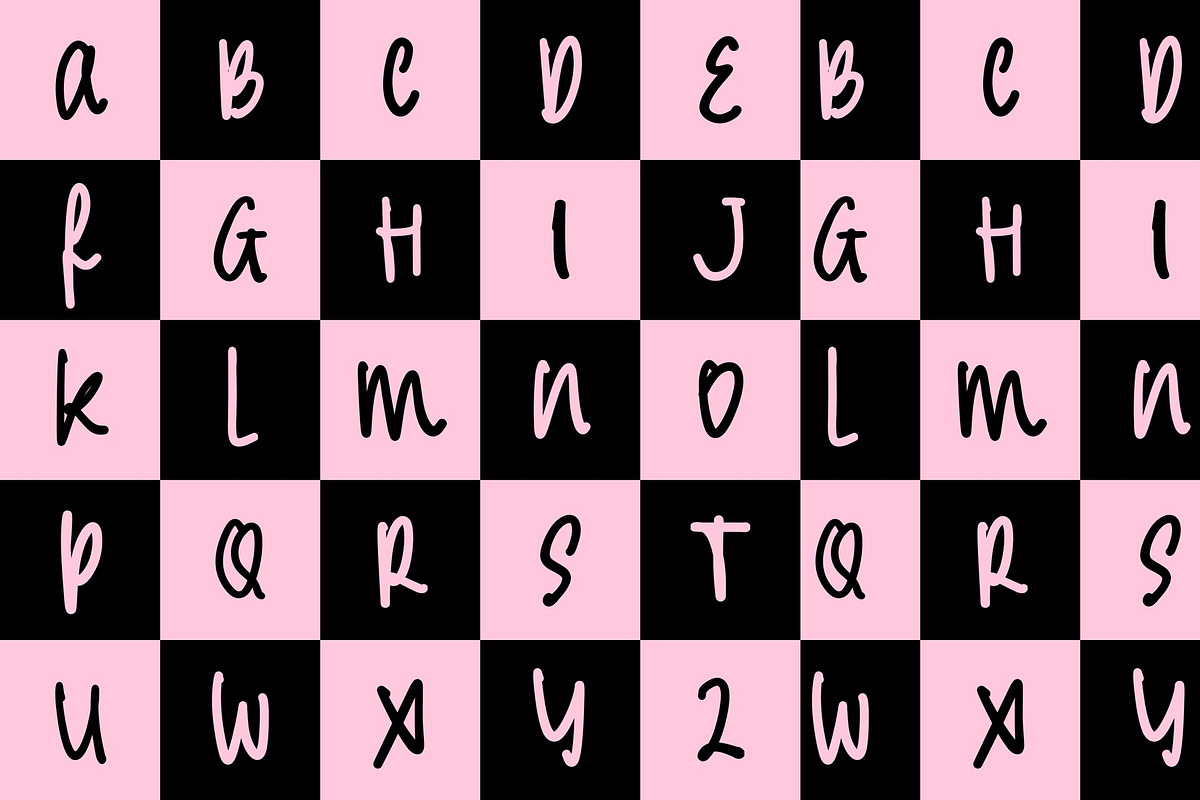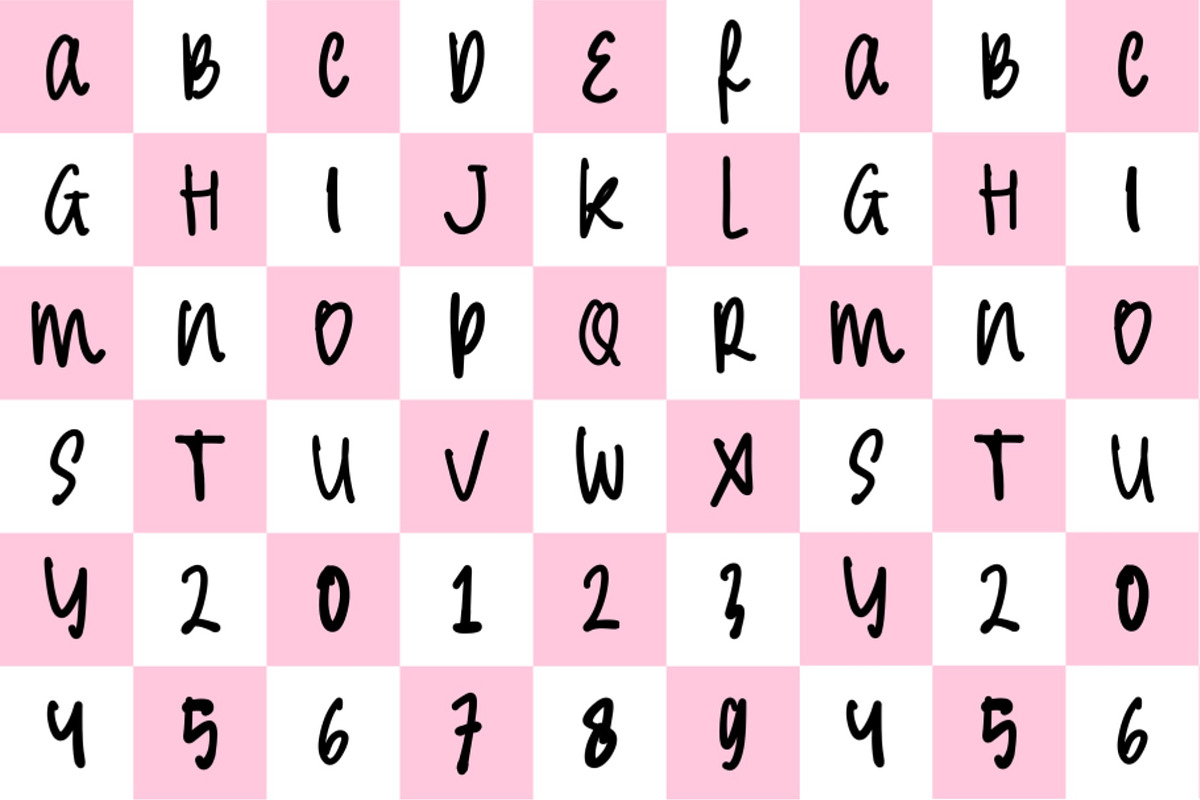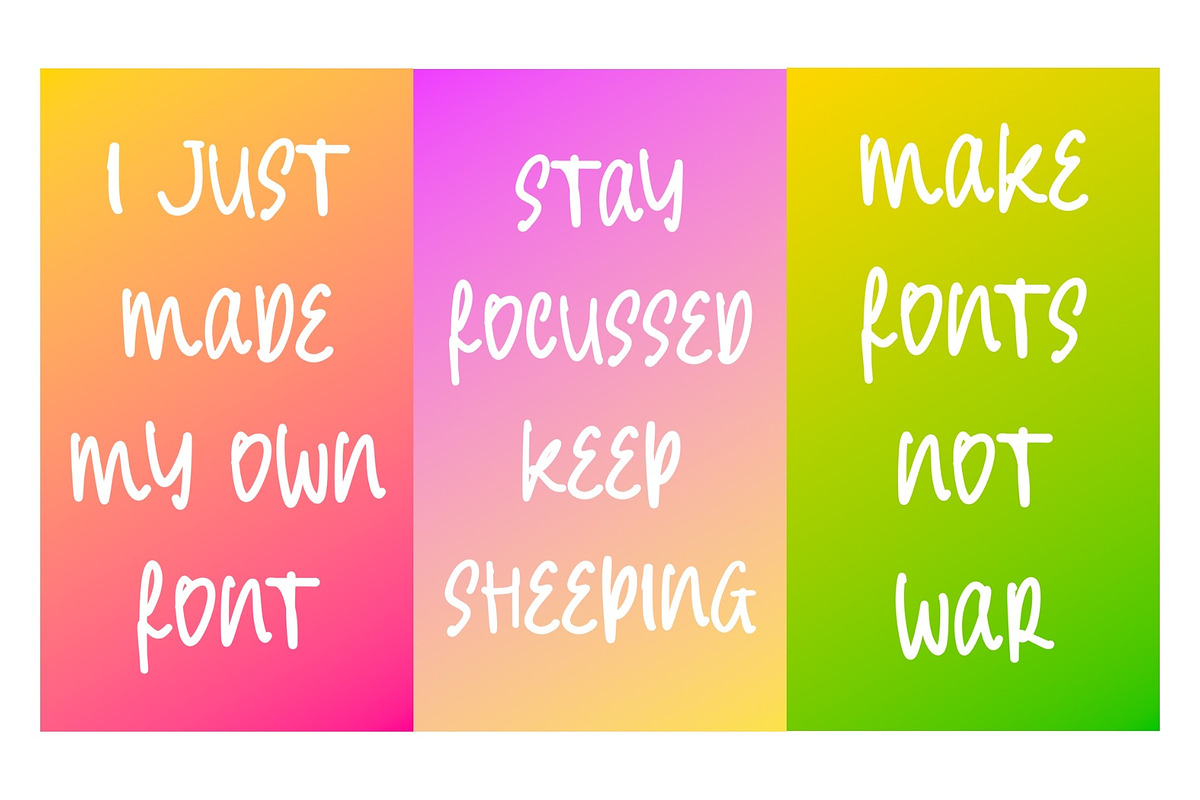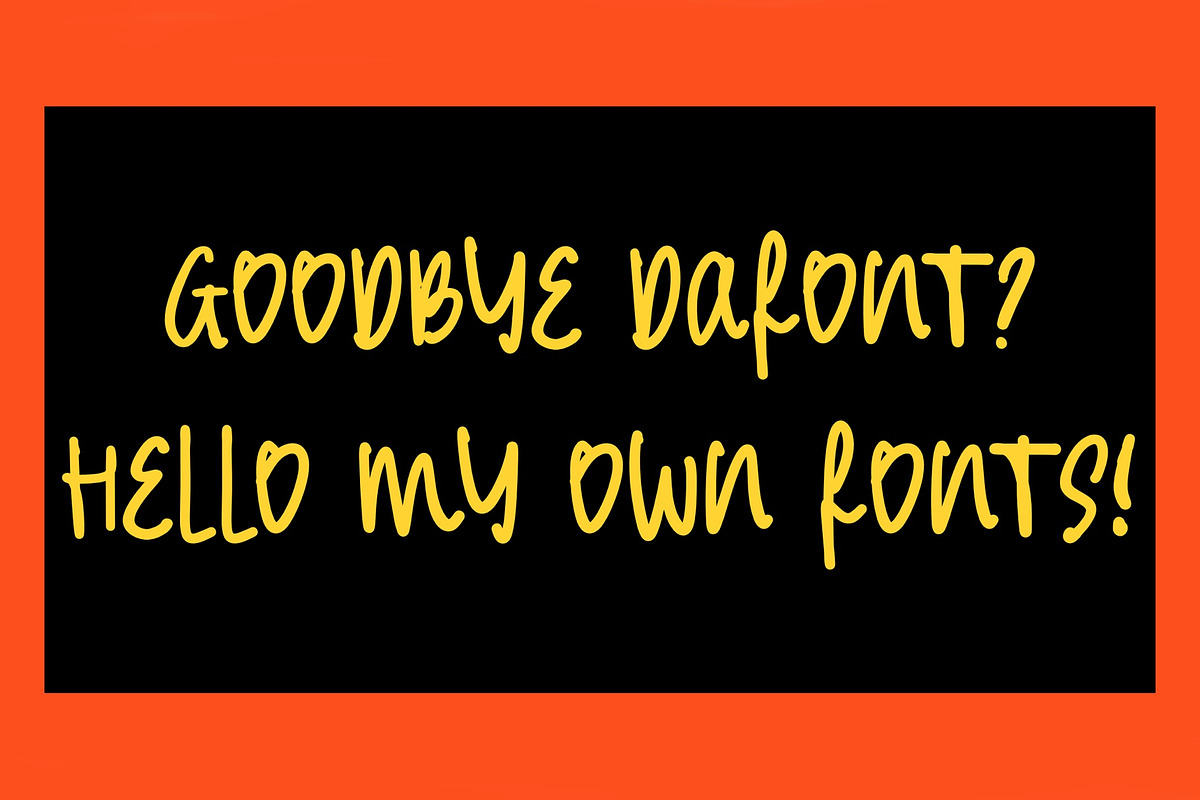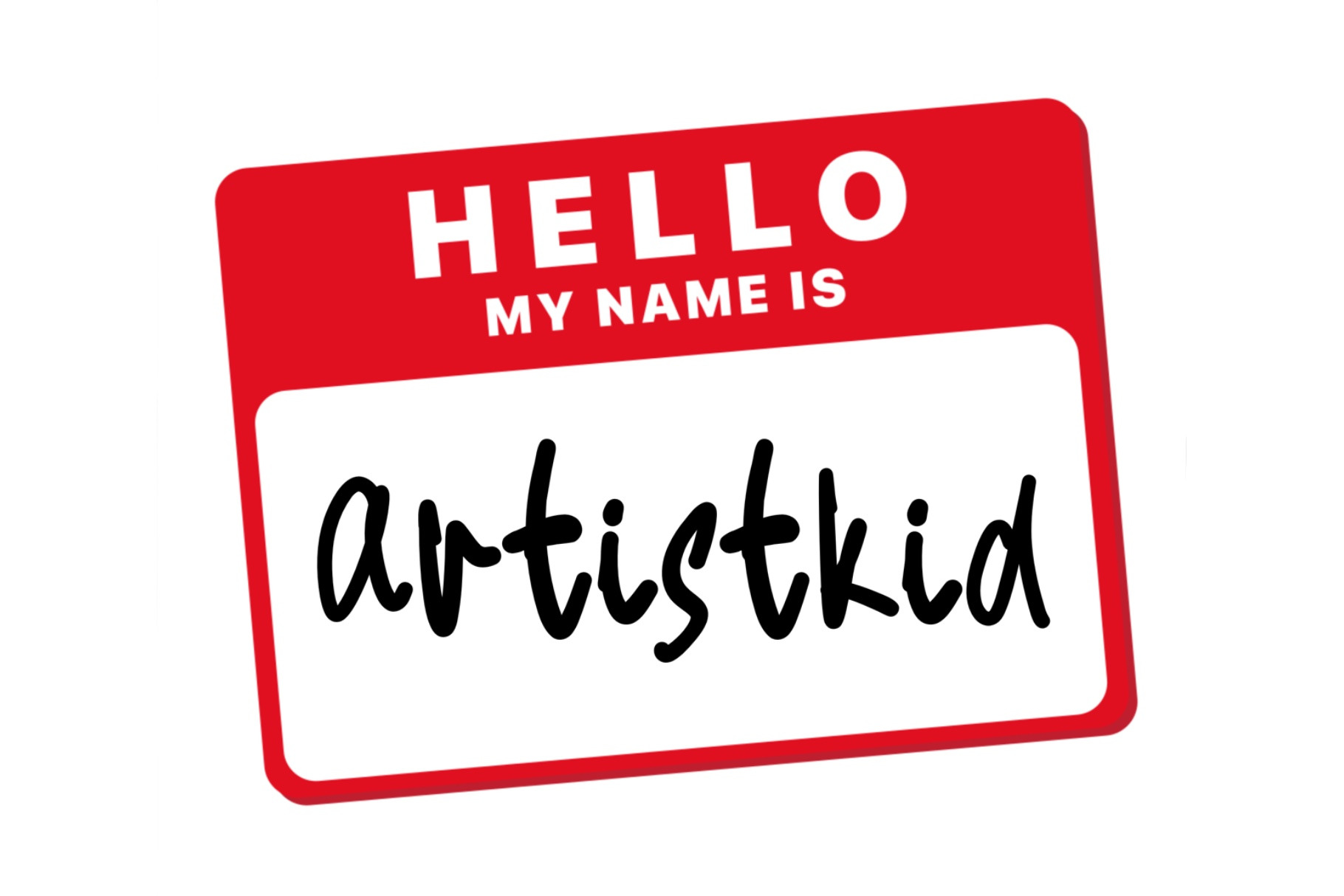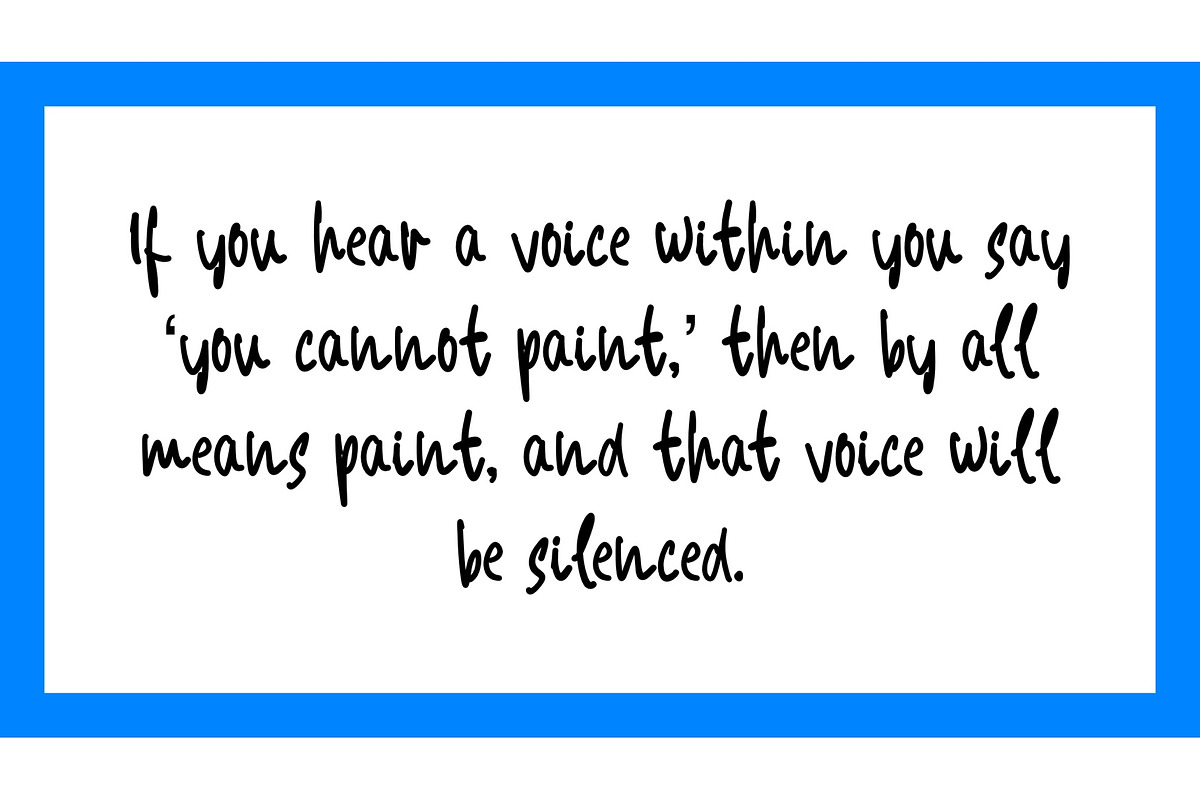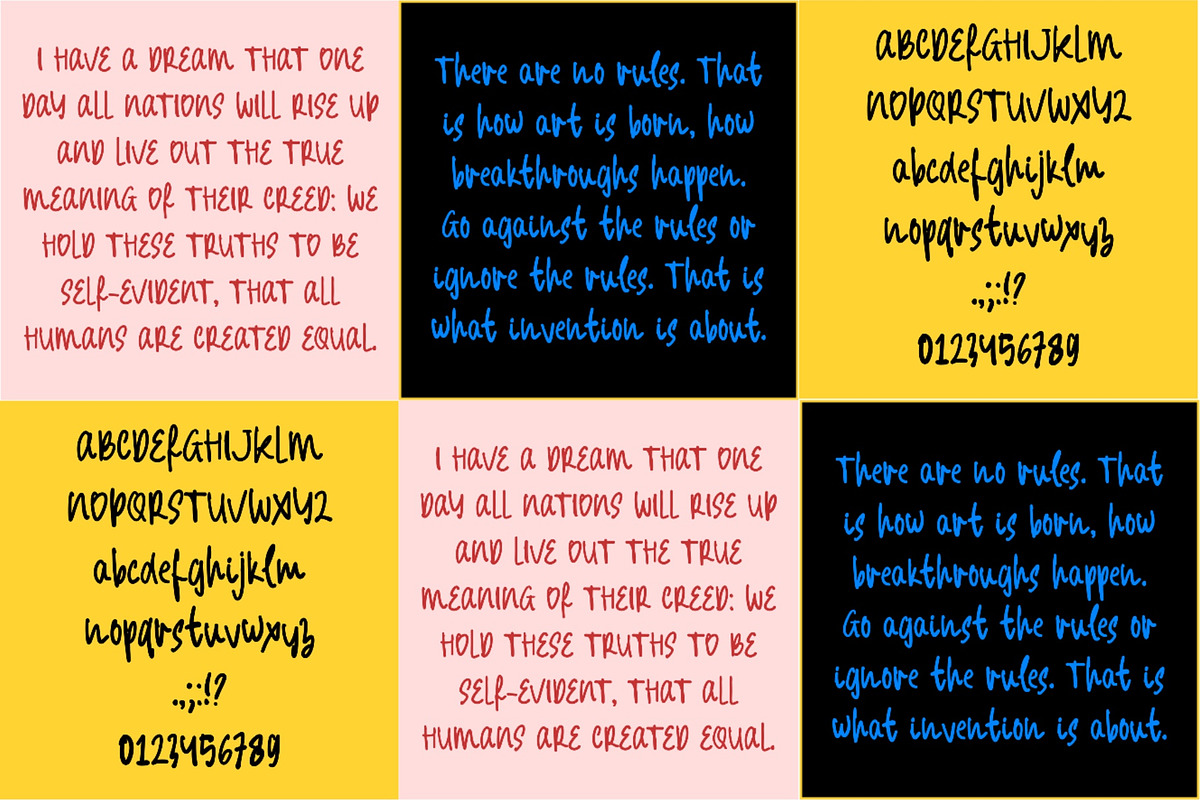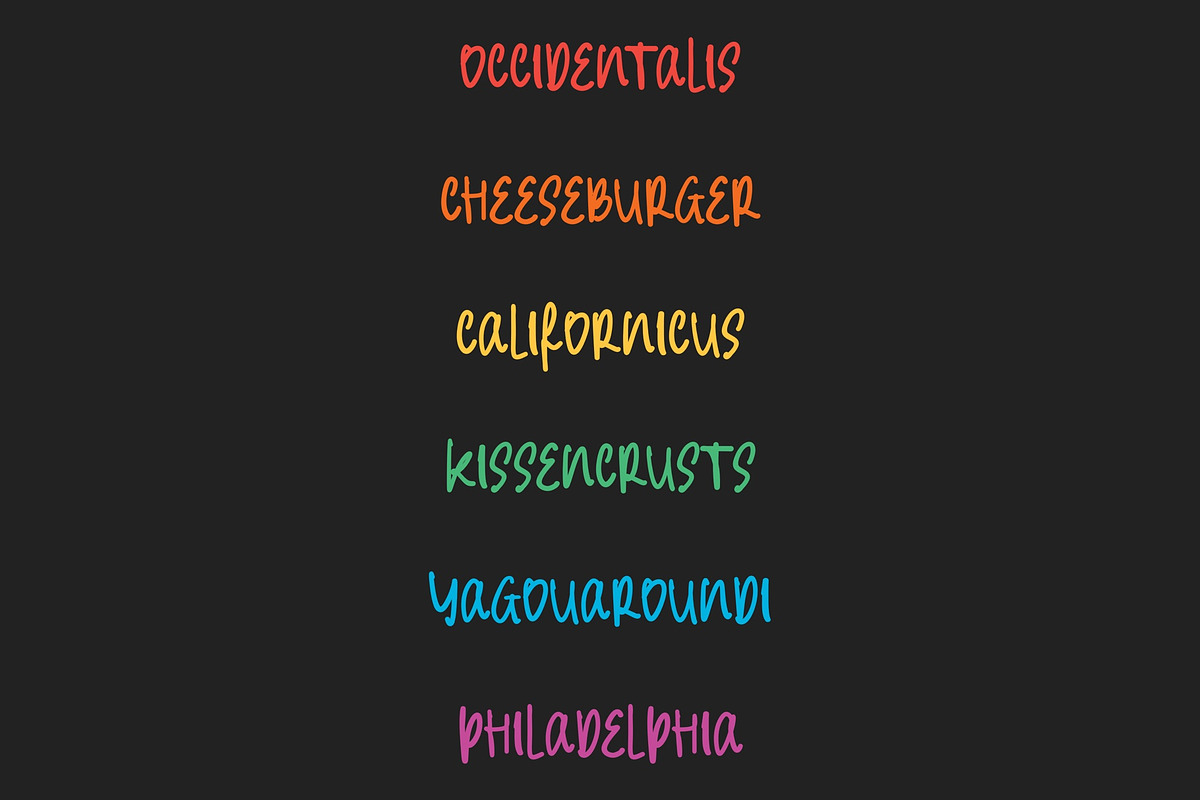
Artiskid Font
Artiskid is a simple, quirky and adaptable handwritten font. Its informal style and casual vibe will make this font a go-to choice for each of the creations that require a relaxed touch. This font is ideal for the design of children's printed products: posters, stickers, wallpaper, souvenirs, inscriptions on T-shirts, labels, postcards, cups, cards and games. Only your imagination can stop you.